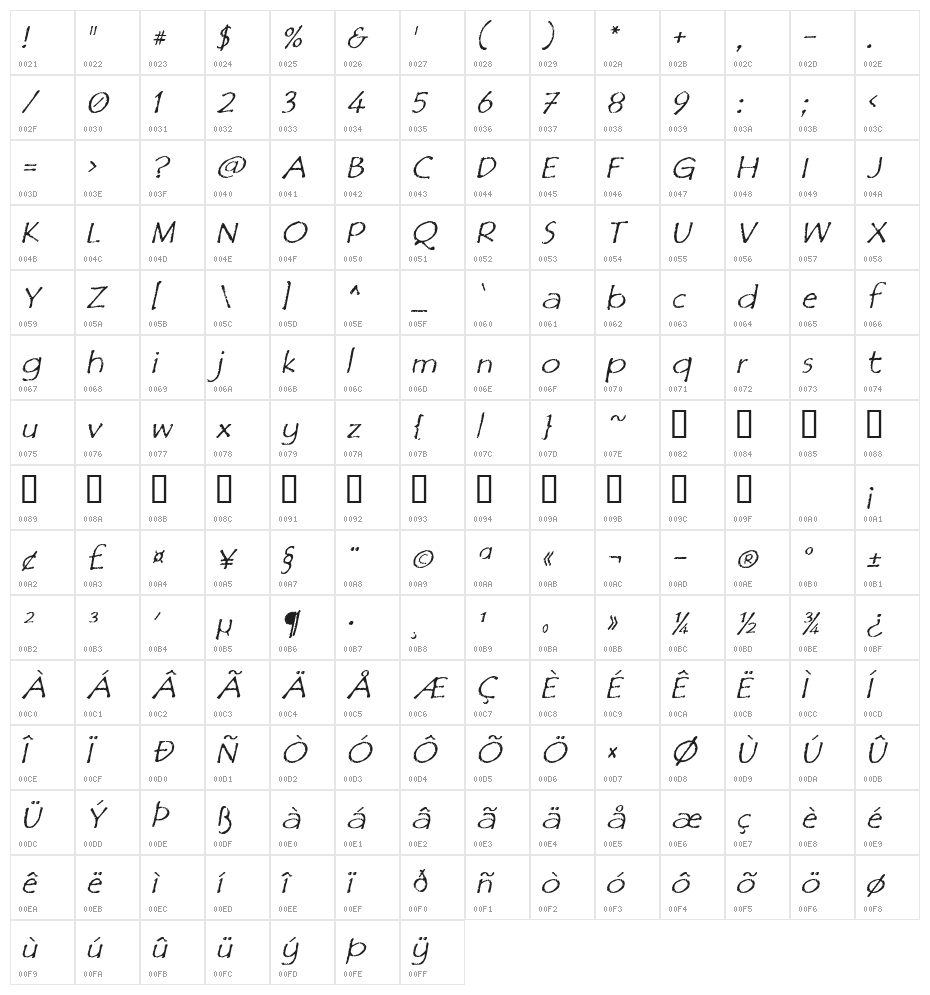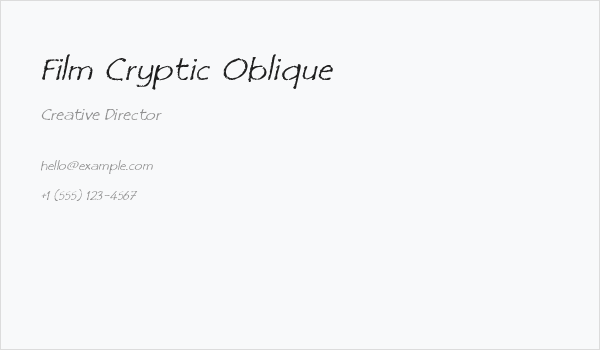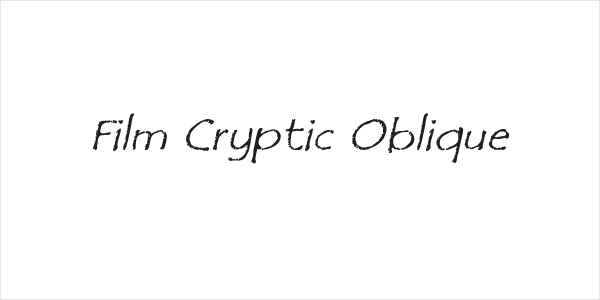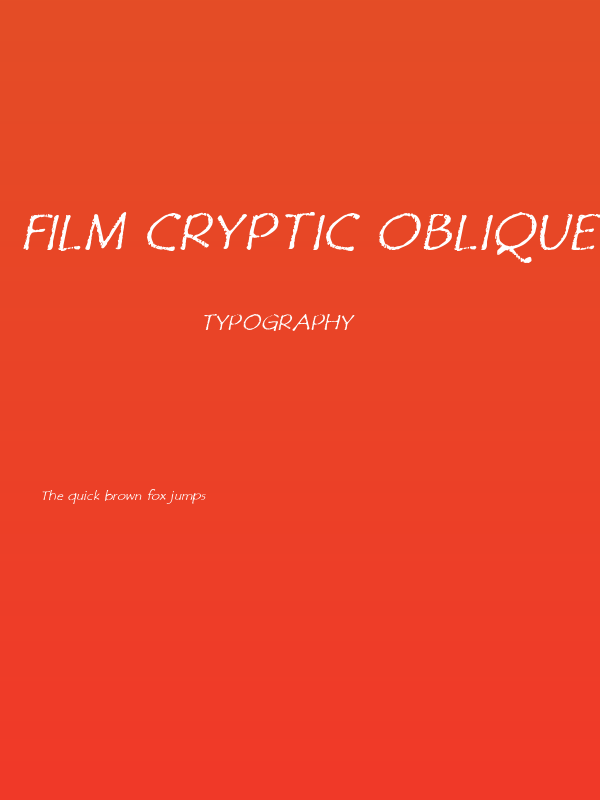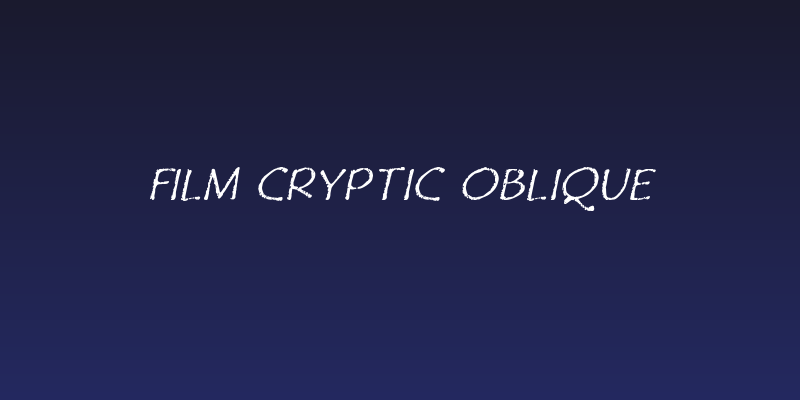
Film Cryptic Oblique Font
Film Cryptic Oblique Description
This font features an oblique style with a textured, almost distressed appearance, giving it a unique and cryptic feel. The letters are slanted, enhancing the dynamic and informal look. The uppercase and lowercase letters maintain a consistent style, with a slightly rough edge that adds character. The numerals and special characters follow the same design, ensuring uniformity across all glyphs. This font's distinct style makes it suitable for projects that require a touch of mystery or an artistic flair.
| Proposed Projects | Ideal for movie posters, album covers, mystery novels, or any creative project needing a distinctive and mysterious touch. |